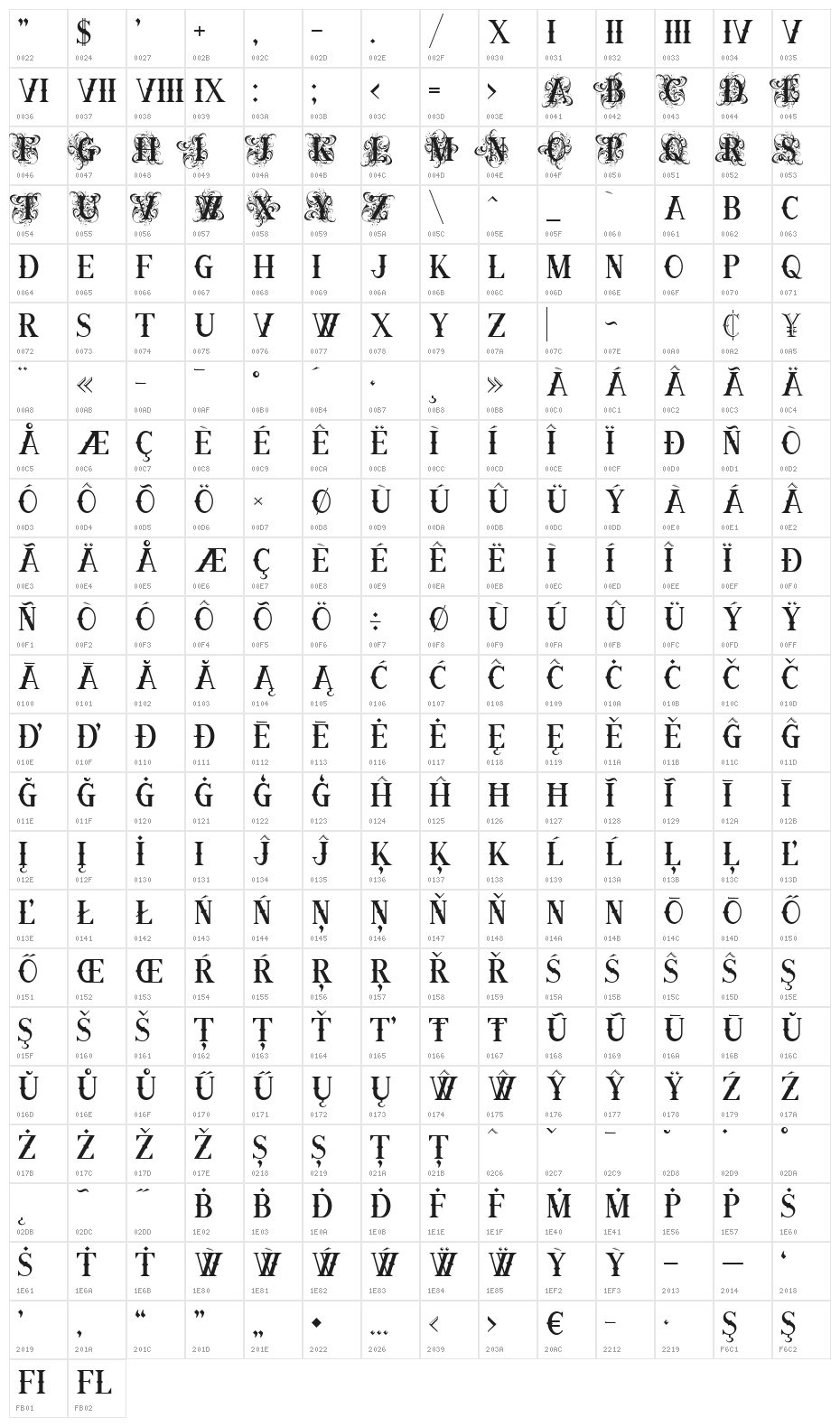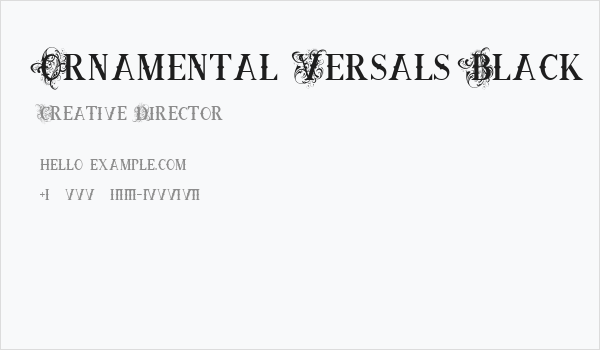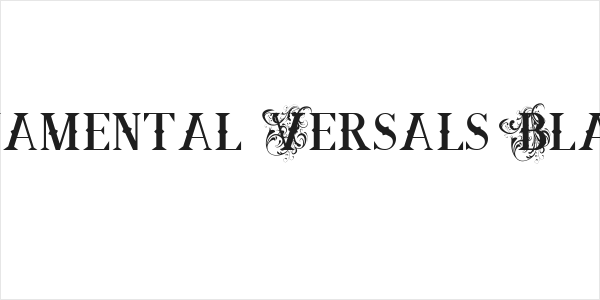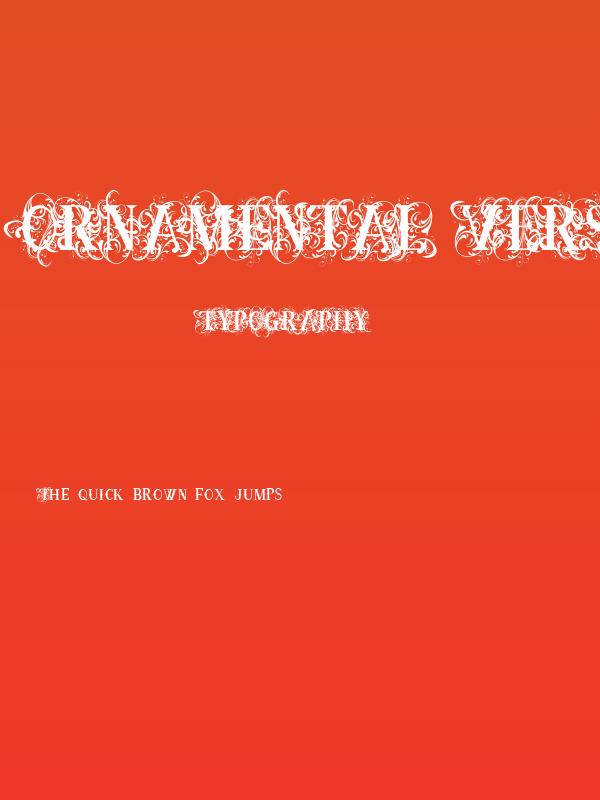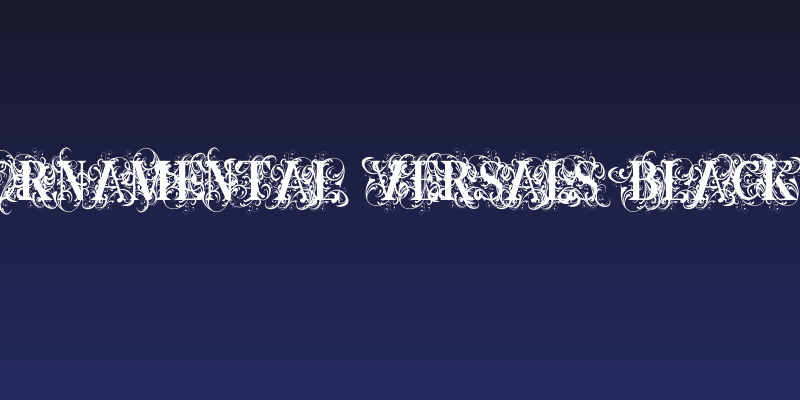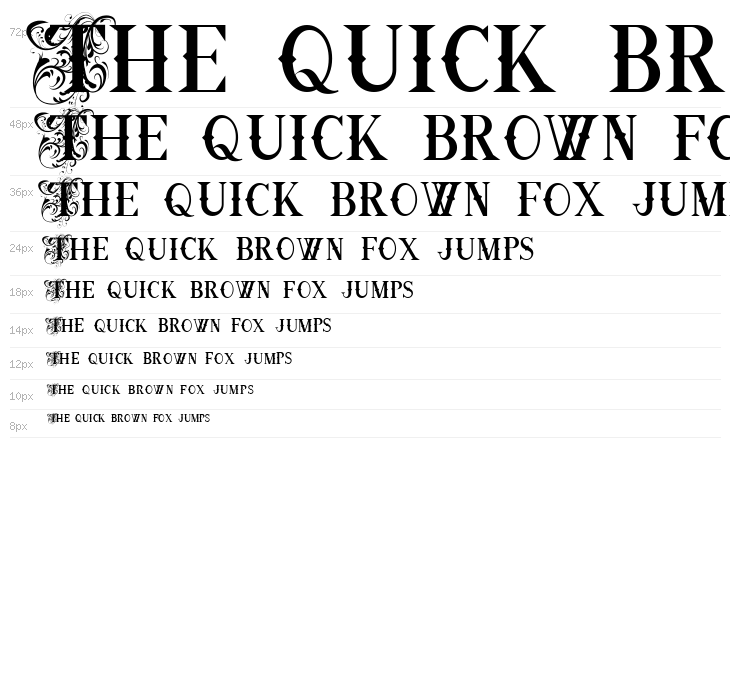
Ornamental Versals Black Font
Ornamental Versals Black Description
This font is a highly decorative and ornate typeface, characterized by intricate flourishes and embellishments that extend from the main strokes of each letter. The uppercase letters are particularly elaborate, featuring swirling designs that give the font a luxurious and sophisticated appearance. The overall style is reminiscent of classic calligraphy with a modern twist, making it suitable for projects that require a touch of elegance and grandeur. The font maintains a consistent weight throughout, with bold strokes that enhance its visibility and impact. Despite its decorative nature, the characters are well-defined and legible, making it a versatile choice for various design applications.
| Proposed Projects | Ideal for wedding invitations, luxury branding, high-end product packaging, and decorative headlines. |